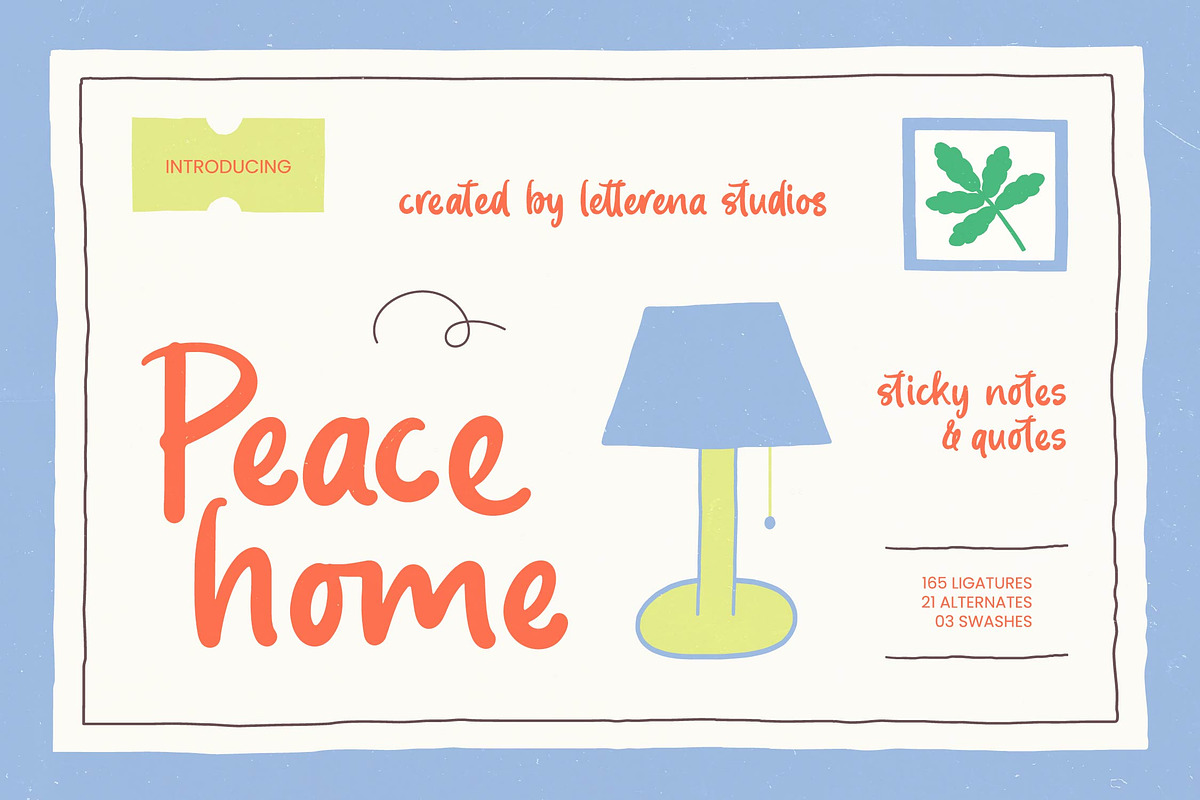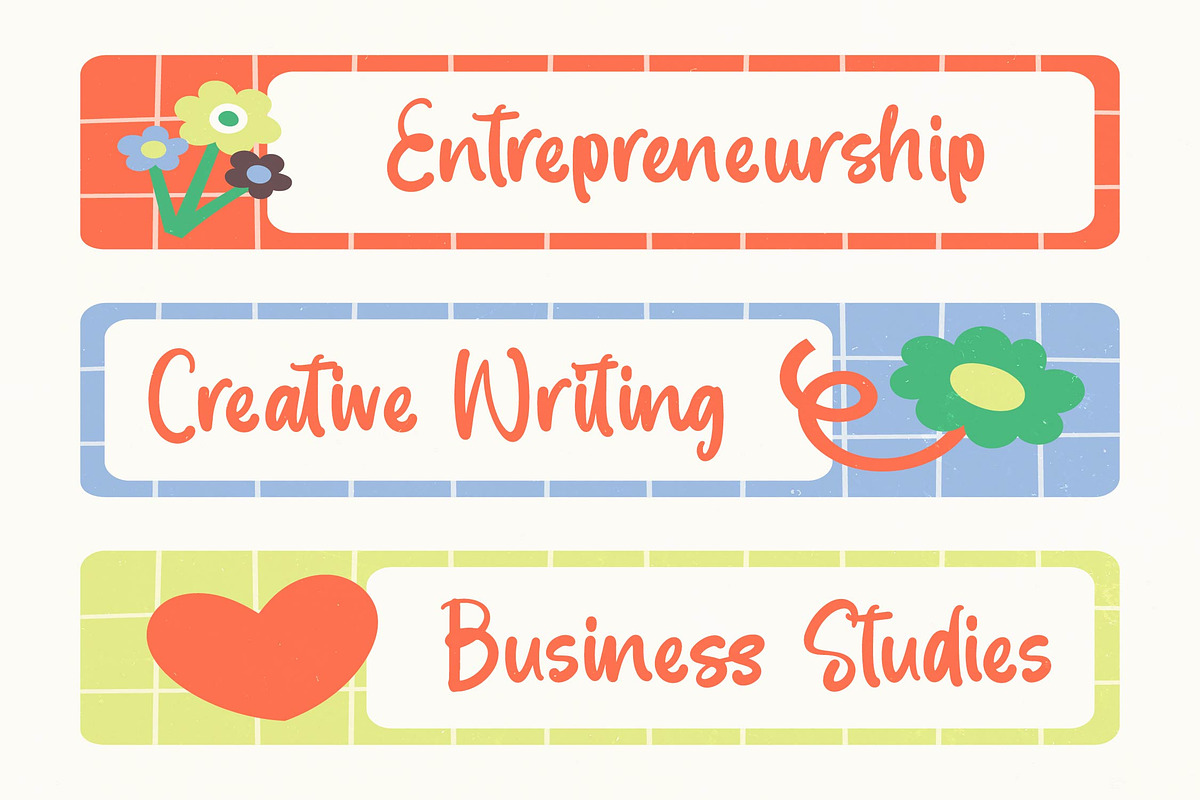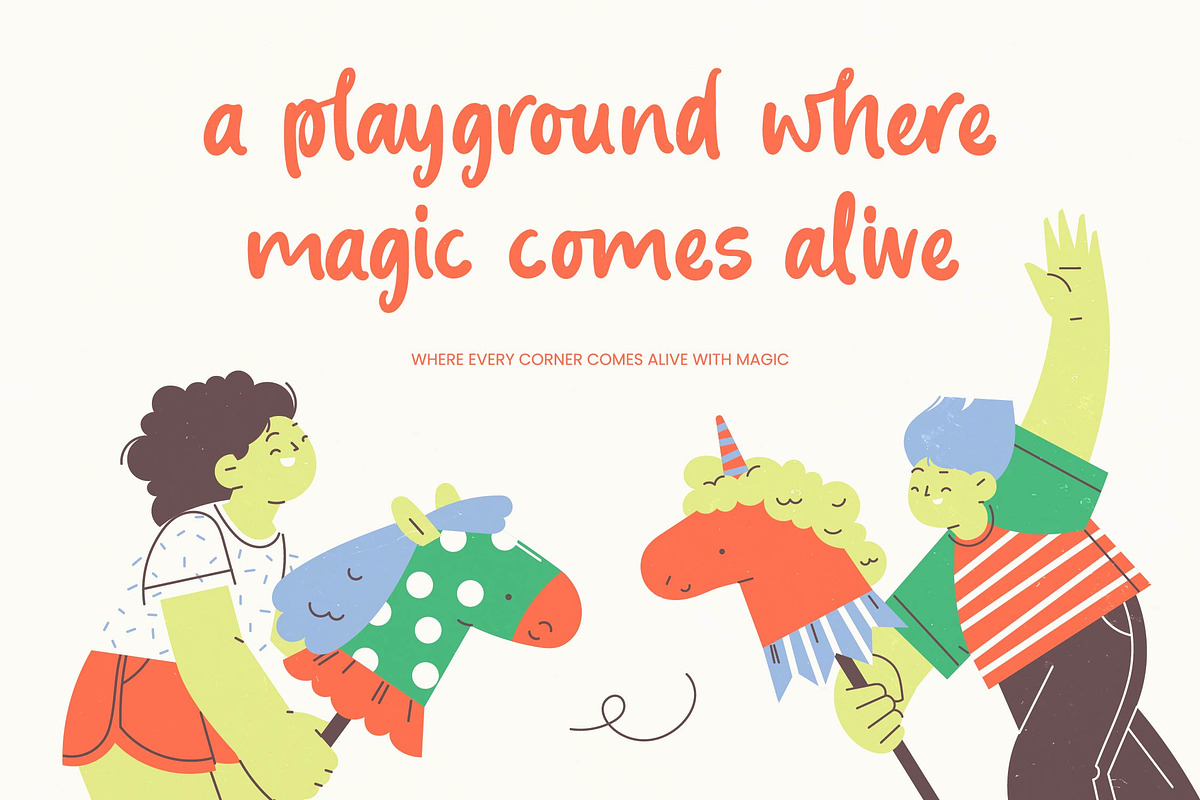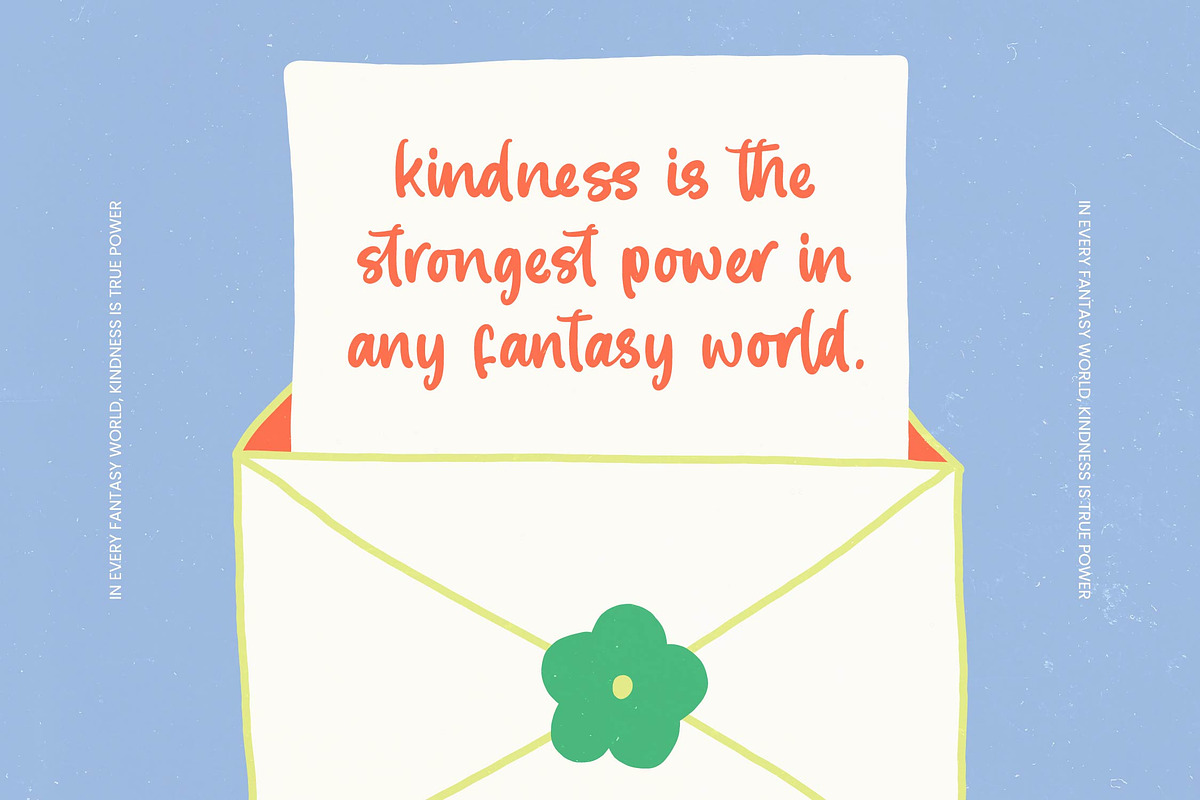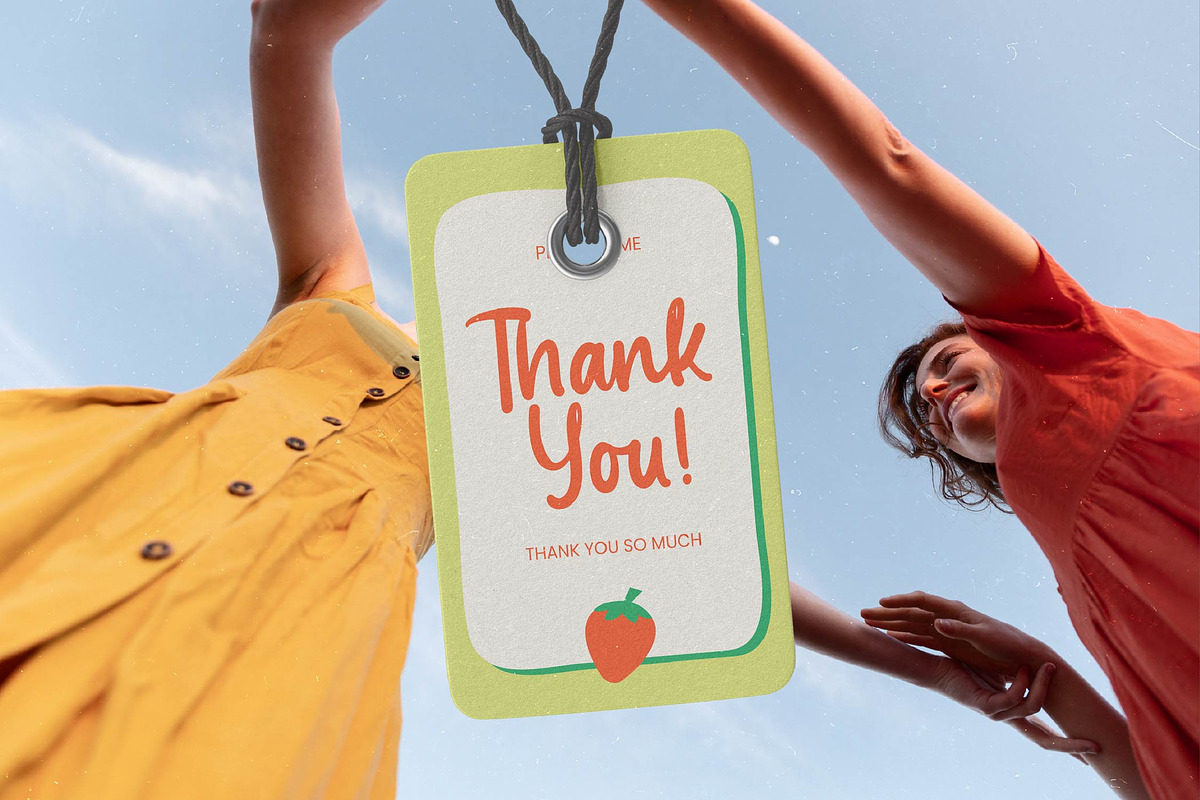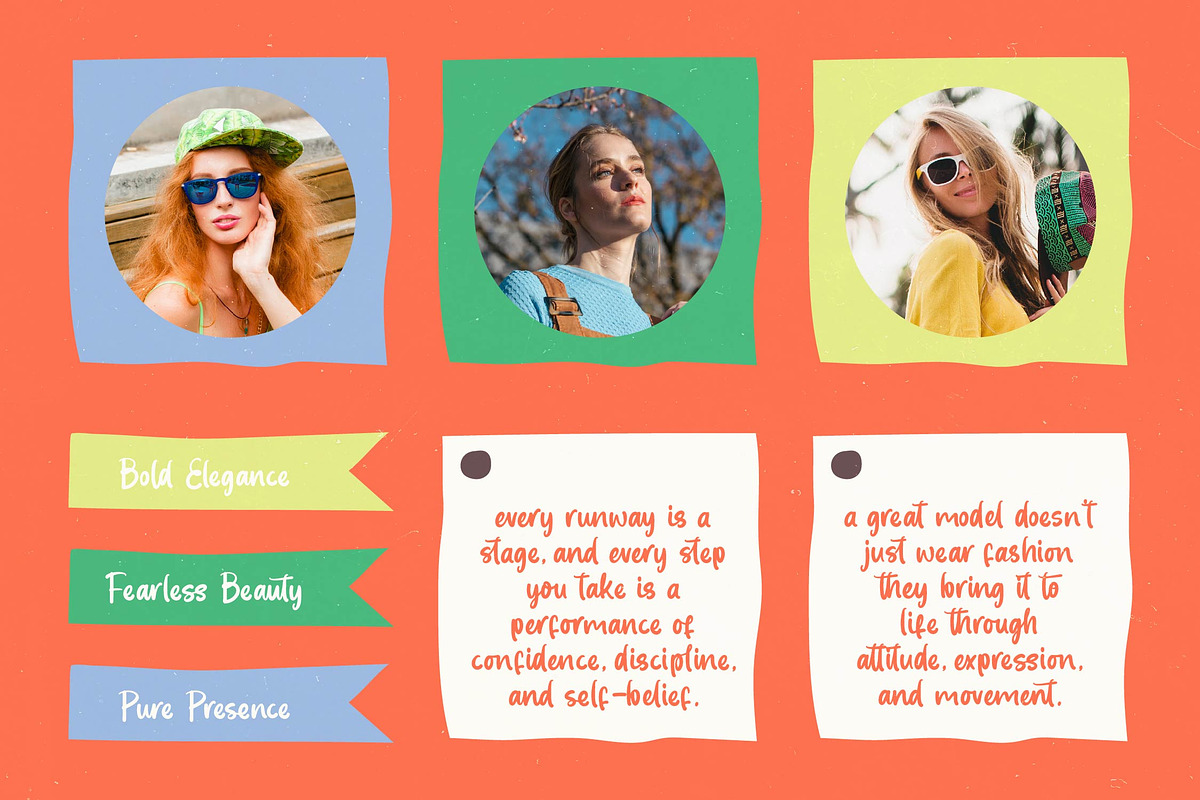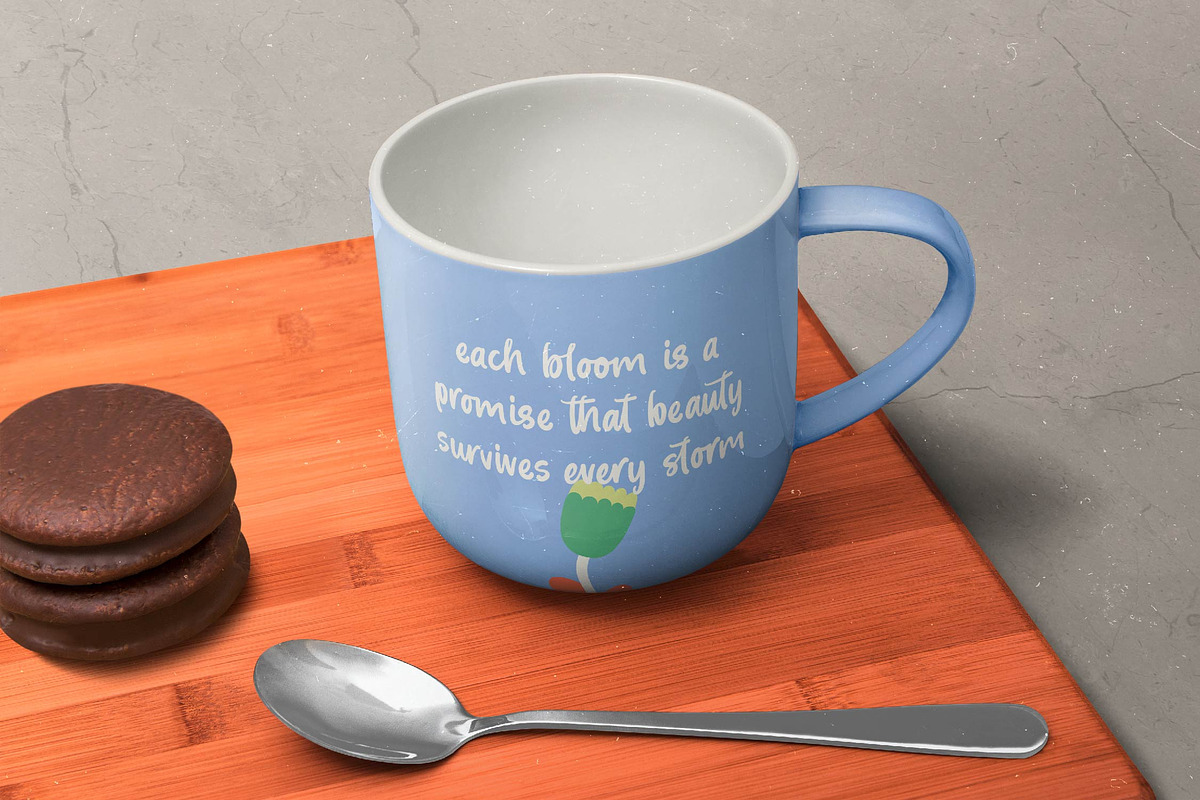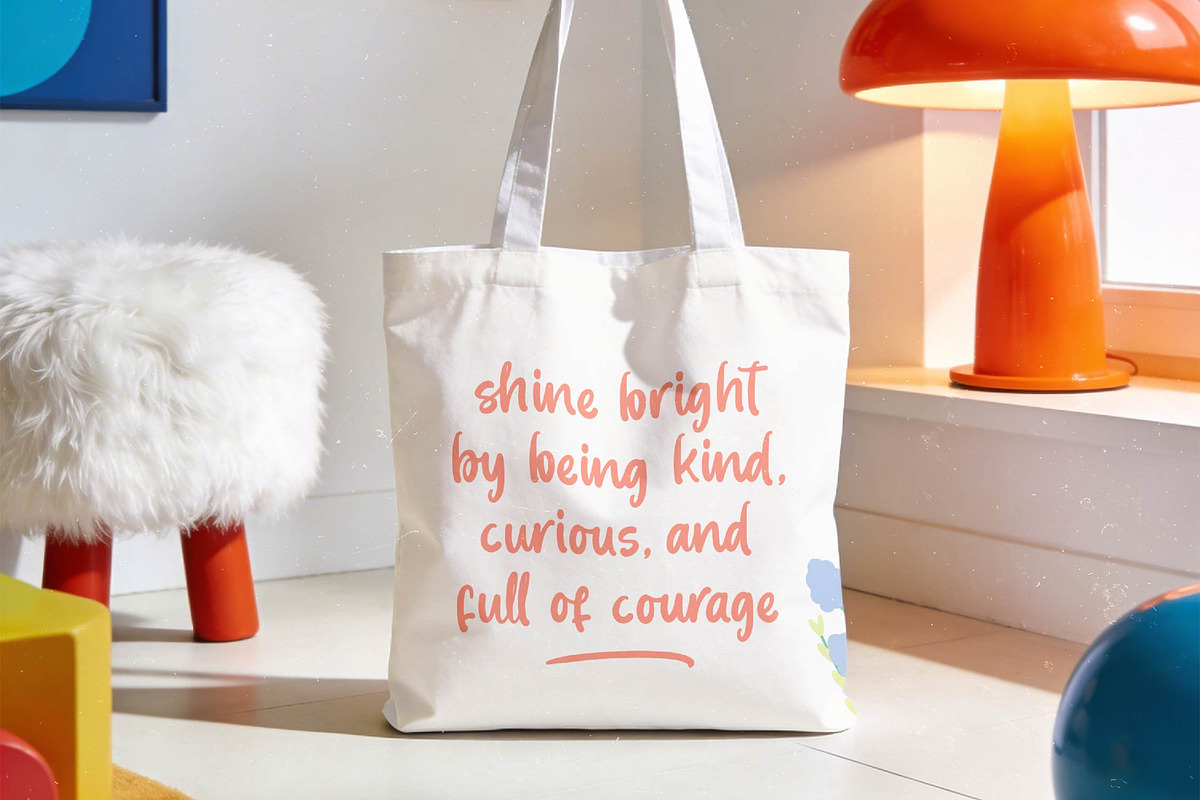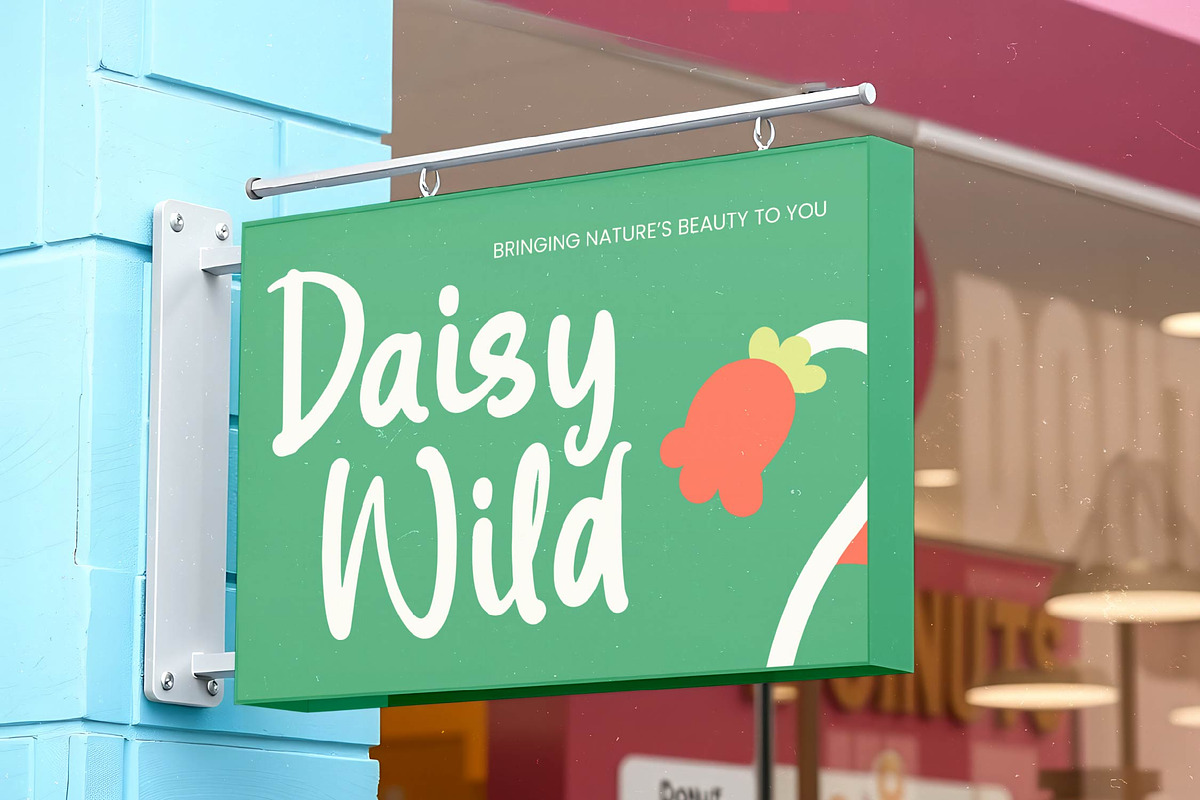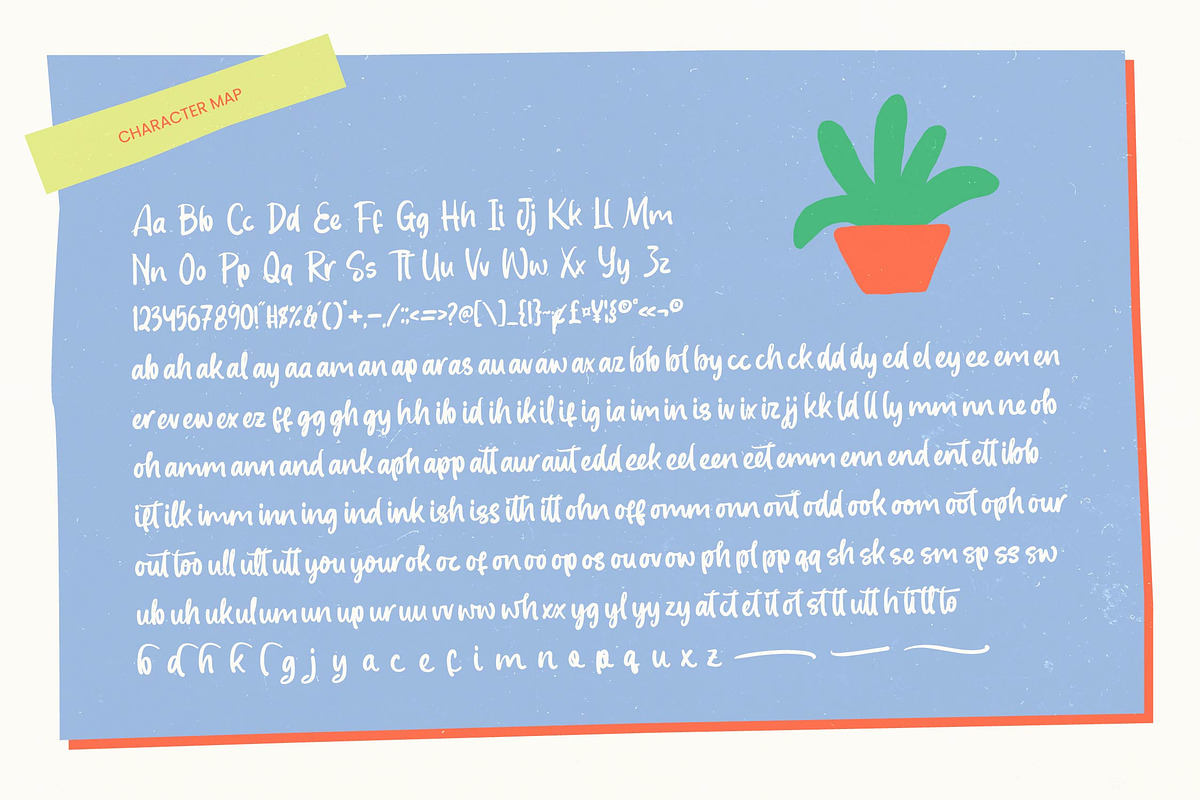
Peace Home Sticky Notes & Quotes
Peace Home - Sticky Notes & Quotes
Elevate your creative projects with the organic charm of Peace Home - Sticky Notes & Quotes, a typeface designed to evoke warmth and authenticity. This handcrafted script captures the essence of personal expression, offering a playful yet professional aesthetic that resonates with modern audiences. Created by Letterena Studios, Peace Home - Sticky Notes & Quotes is more than just a font; it is a versatile design tool that brings a human touch to digital environments and print media alike.
Discover the power of fluid storytelling through the artistic curves and rhythmic flow of this unique typeface. Featuring an impressive collection of 165 ligatures and 21 alternates, Peace Home - Sticky Notes & Quotes ensures that every word feels custom-made and naturally executed. The inclusion of decorative swashes allows designers to add a bespoke flair to their layouts, making it easy to achieve a polished, high-end look with minimal effort.
Global communication becomes effortless when you integrate this typeface into your creative workflow. With its extensive multilingual support, Peace Home - Sticky Notes & Quotes adapts seamlessly across global markets, making it incredibly versatile for international projects. This inclusive character set guarantees that your message remains clear and visually consistent, regardless of the region or language, providing true flexibility for worldwide brand campaigns and cross-cultural storytelling.
Perfect for lifestyle branding, social media graphics, and editorial layouts, Peace Home - Sticky Notes & Quotes excels in spaces where emotional connection is key. It is the ideal choice for packaging design, inspirational quotes, and greeting cards, where a friendly personality is required to stand out. Whether you are building a boutique identity or designing engaging marketing collateral, this font provides the aesthetic foundation needed for memorable visual communication.